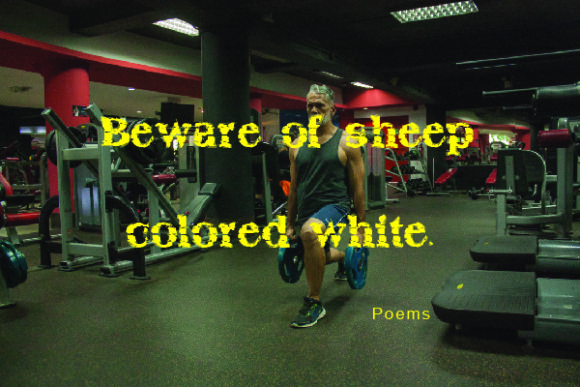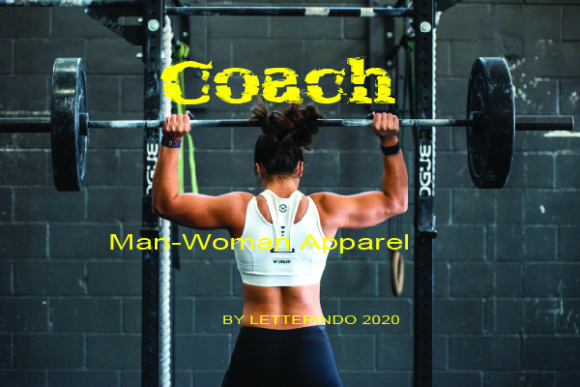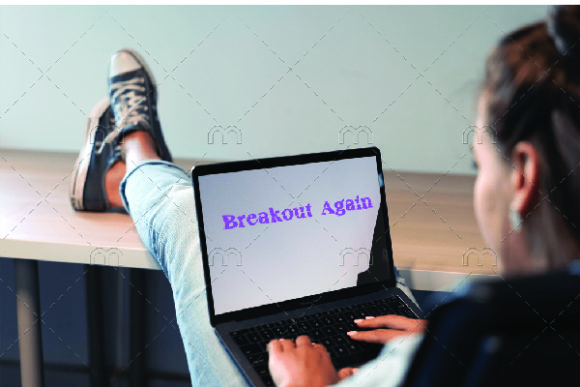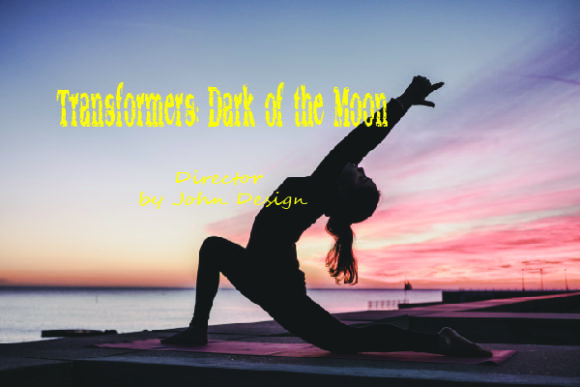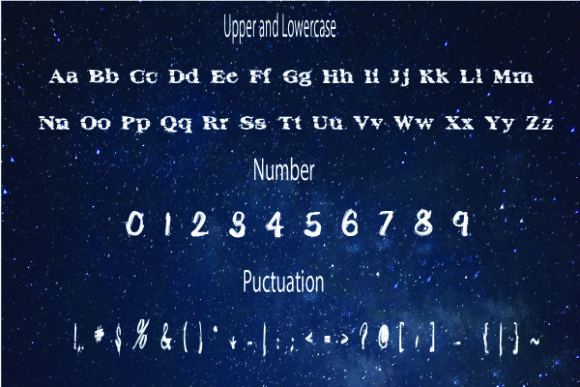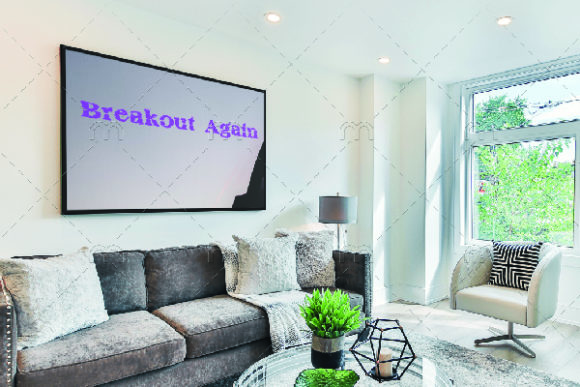
Unleash Your Creativity with Breakout Again Font
Are you tired of using the same old fonts for your design projects? Look no further! Breakout Again Font is a bold and beautiful display font that can elevate your creative ideas to the next level. With its unique and eye-catching design, this font is perfect for designers and crafters who want to make their projects stand out from the crowd.
What Makes Breakout Again Font So Special?
Breakout Again Font is a versatile and highly adaptable font that can be matched with an incredibly large set of projects. Whether you’re working on a logo, brochure, poster, or social media graphic, this font is sure to make a lasting impression. Its bold and beautiful design makes it perfect for headlines, titles, and other display text, while its clear and legible design ensures that it remains easy to read.
Key Features of Breakout Again Font
- Bold and Beautiful Design: Breakout Again Font features a bold and beautiful design that is sure to grab attention.
- Highly Versatile: This font can be matched with a wide range of projects, from logos and brochures to posters and social media graphics.
- Clear and Legible: Despite its bold design, Breakout Again Font remains clear and legible, making it perfect for use in a variety of contexts.
- Easily Customizable: With its wide range of customization options, you can easily tailor Breakout Again Font to suit your specific design needs.
How to Use Breakout Again Font in Your Design Projects
Using Breakout Again Font in your design projects is easy! Here are a few tips to get you started:
- Pair it with Other Fonts: Breakout Again Font pairs well with a wide range of other fonts, so don’t be afraid to experiment with different combinations.
- Use it for Headlines and Titles: The bold and beautiful design of Breakout Again Font makes it perfect for use in headlines and titles.
- Add it to Your Brand Identity: If you’re looking to create a consistent brand identity, consider adding Breakout Again Font to your font library.
Benefits of Using Breakout Again Font
There are many benefits to using Breakout Again Font in your design projects. Here are just a few:
- Increased Visibility: The bold and beautiful design of Breakout Again Font makes it perfect for use in projects where you want to grab attention.
- Improved Brand Identity: By using Breakout Again Font in your design projects, you can create a consistent brand identity that sets you apart from the competition.
- Easier Design Process: With its highly versatile design, Breakout Again Font can be used in a wide range of projects, making it a great addition to your font library.
In conclusion, Breakout Again Font is a bold and beautiful display font that can elevate your creative ideas to the next level. With its unique and eye-catching design, highly versatile nature, and wide range of customization options, this font is perfect for designers and crafters who want to make their projects stand out from the crowd. So why wait? Add Breakout Again Font to your font library today and start creating stunning designs that grab attention!